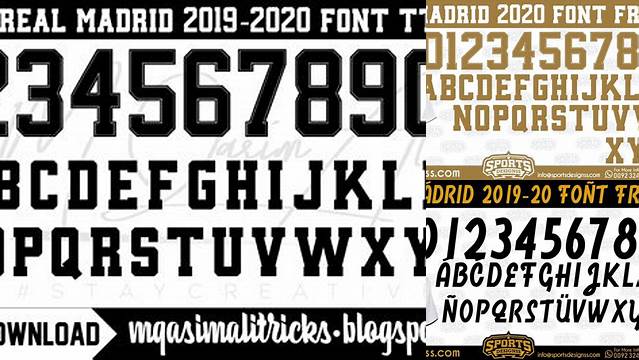
Real Madrid Font 2019: Free Download For Fans!
Hey guys! Are you a die-hard Real Madrid fan looking to add some of that Madridista flair to your designs? You're in the right place! Getting your hands on the official Real Madrid font can be a game-changer, whether you're creating fan art, designing posters, or even just personalizing your social media. This article will walk you through everything you need to know about the Real Madrid font 2019 free download, including where to find it, how to use it, and some cool ways to incorporate it into your projects. So, buckle up and let's dive in!
1. Understanding the Real Madrid Font
The Real Madrid font 2019 is more than just a typeface; it's a symbol of the club's rich history and global prestige. It embodies the elegance, power, and winning spirit associated with Los Blancos. The font is meticulously designed to reflect the club's brand identity, making it instantly recognizable to fans worldwide. Understanding its significance allows you to appreciate it beyond just its aesthetic appeal. It's a piece of the club's legacy that you can use in your own creative endeavors. Using the Real Madrid font 2019 free download correctly is about more than just typing out words; it's about capturing the essence of the team.
What Makes the Real Madrid Font Unique?
The Real Madrid font stands out because of its distinctive design elements. It often features a strong, bold character with a touch of elegance, reflecting the club's dominant presence on the field. The specific font used may vary slightly from year to year, but the core characteristics remain consistent. The curves and angles are crafted to create a sense of dynamism and sophistication. When you consider the Real Madrid font 2019 free download, you’re not just getting a font; you’re getting a piece of the club’s visual identity. The font's uniqueness also lies in its versatility – it looks equally good on a jersey as it does on a digital banner. This adaptability makes the Real Madrid font a powerful tool for branding and fan engagement.
The History of Real Madrid's Typography
Real Madrid's typography has evolved over the years, mirroring the club's growth and modernization. The club has consistently used fonts that convey strength, tradition, and a winning mentality. The 2019 font is part of this ongoing evolution, representing a specific era in the club's history. Knowing the history behind the font can add depth to your appreciation and usage of it. Each iteration of the font reflects the design trends and branding strategies of its time. By exploring the Real Madrid font 2019 free download, you're connecting with a legacy of visual communication that spans decades. The font choices have always been integral to projecting Real Madrid's image on and off the field.
3. Identifying the Correct Font
It's essential to identify the correct Real Madrid font to ensure your designs are authentic. There may be variations or imitations available, but using the official font will give your work a professional and genuine look. Look for specific characteristics that define the font, such as the shape of the letters, the weight, and the overall style. Comparing the font to official Real Madrid branding materials can help you confirm its authenticity. So, how do you become a font detective and spot the real deal?
Comparing to Official Branding
The best way to ensure you have the correct font is to compare it to official Real Madrid branding materials. Look at the club's website, jerseys, posters, and other official communications. Pay attention to the font used in the club's logo, player names, and other text elements. This comparison will give you a clear benchmark for identifying the correct Real Madrid font 2019 free download. It’s like matching a puzzle piece to its place – the more you compare, the clearer the fit becomes.
10. Conclusion: Unleash Your Creativity with the Real Madrid Font
The Real Madrid font is more than just a typeface; it's a symbol of the club's legacy, passion, and winning spirit. Whether you're a die-hard fan or a graphic designer looking for a bold and elegant font, the Real Madrid font 2019 free download can be a valuable asset. By understanding the font's history, identifying the correct version, and using it responsibly, you can create stunning designs that capture the essence of Real Madrid. So, go ahead, download the font, and let your creativity soar! Remember, the power of the Real Madrid font 2019 free download lies in your hands – use it wisely and create something amazing!